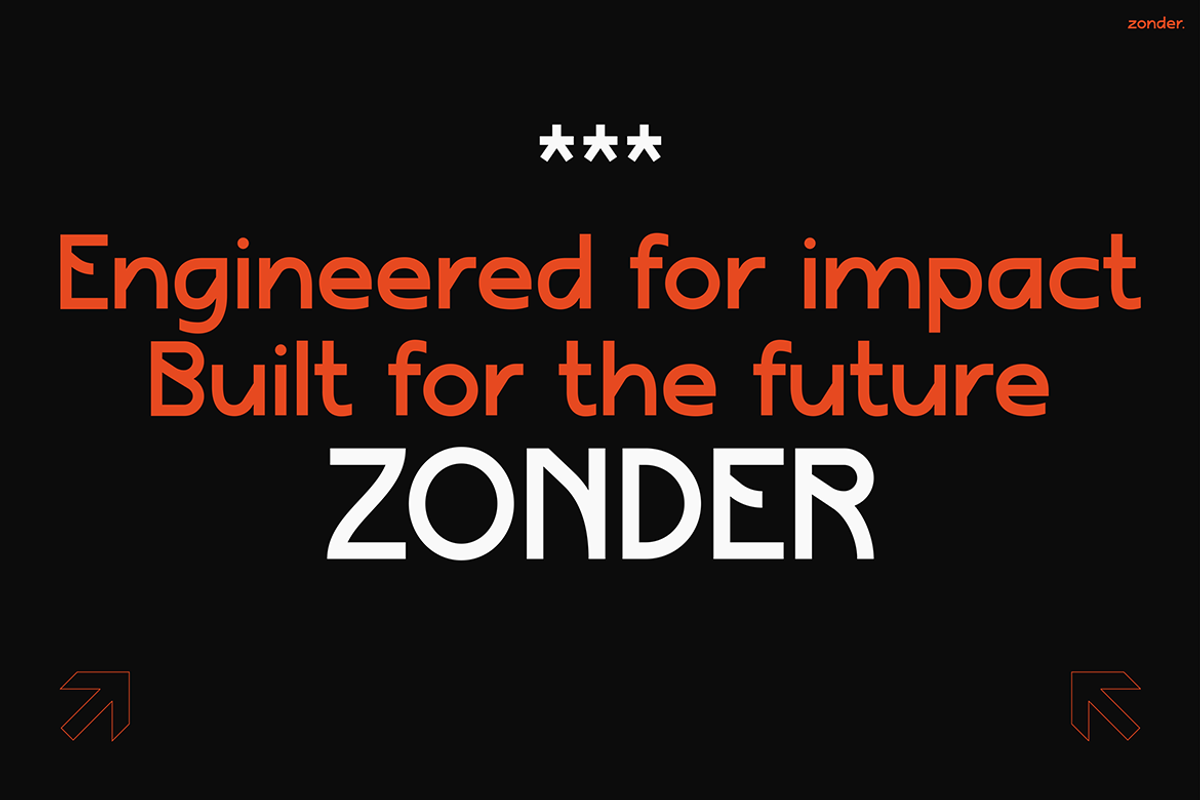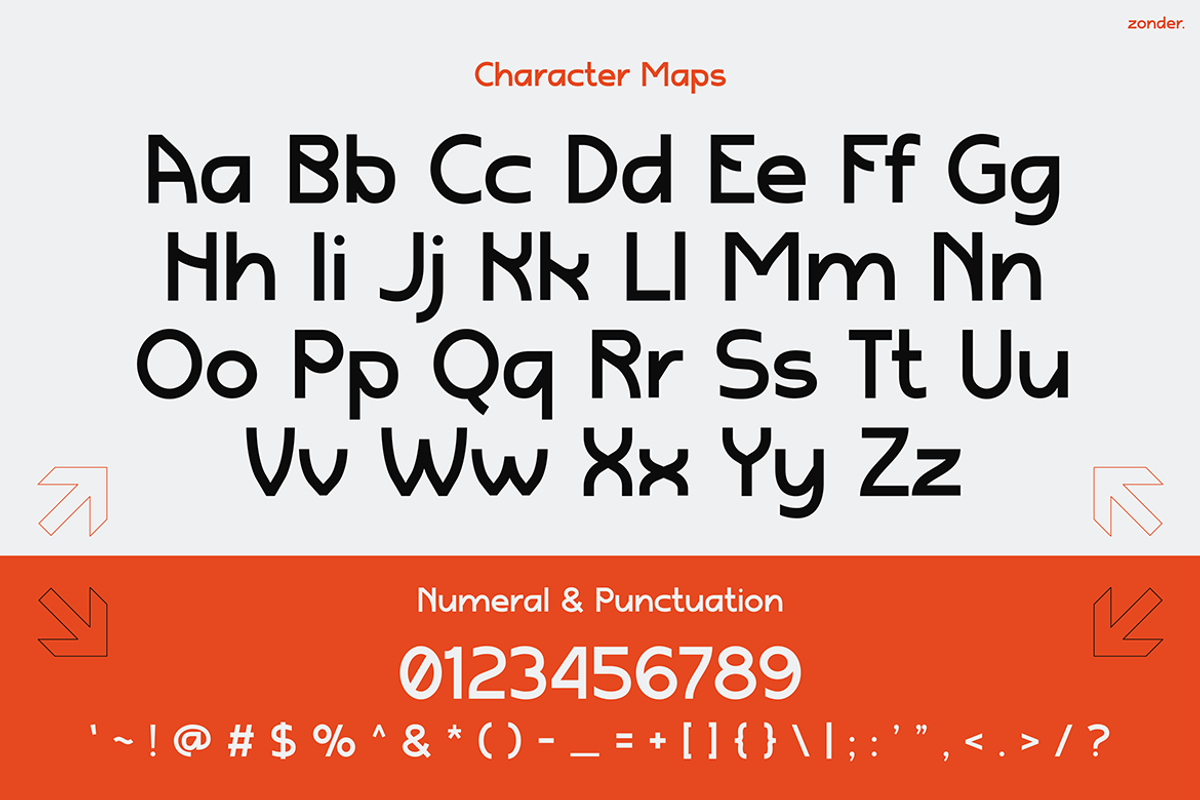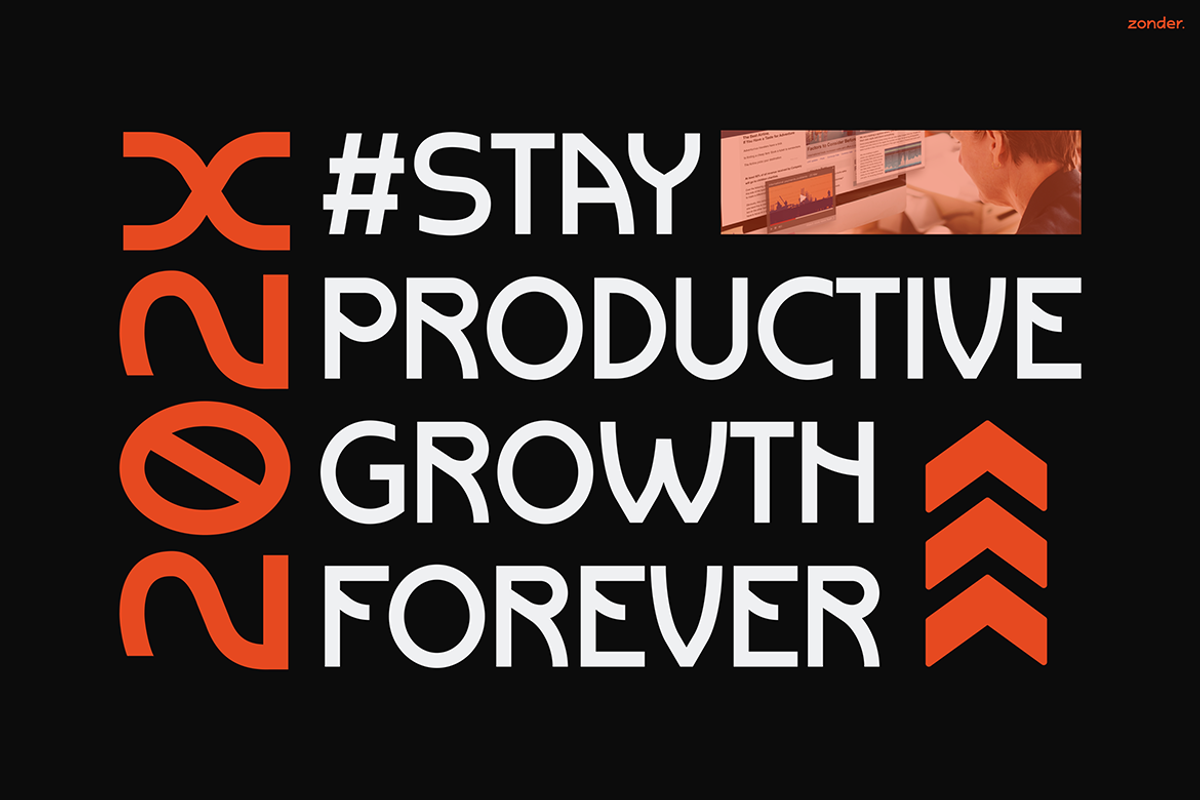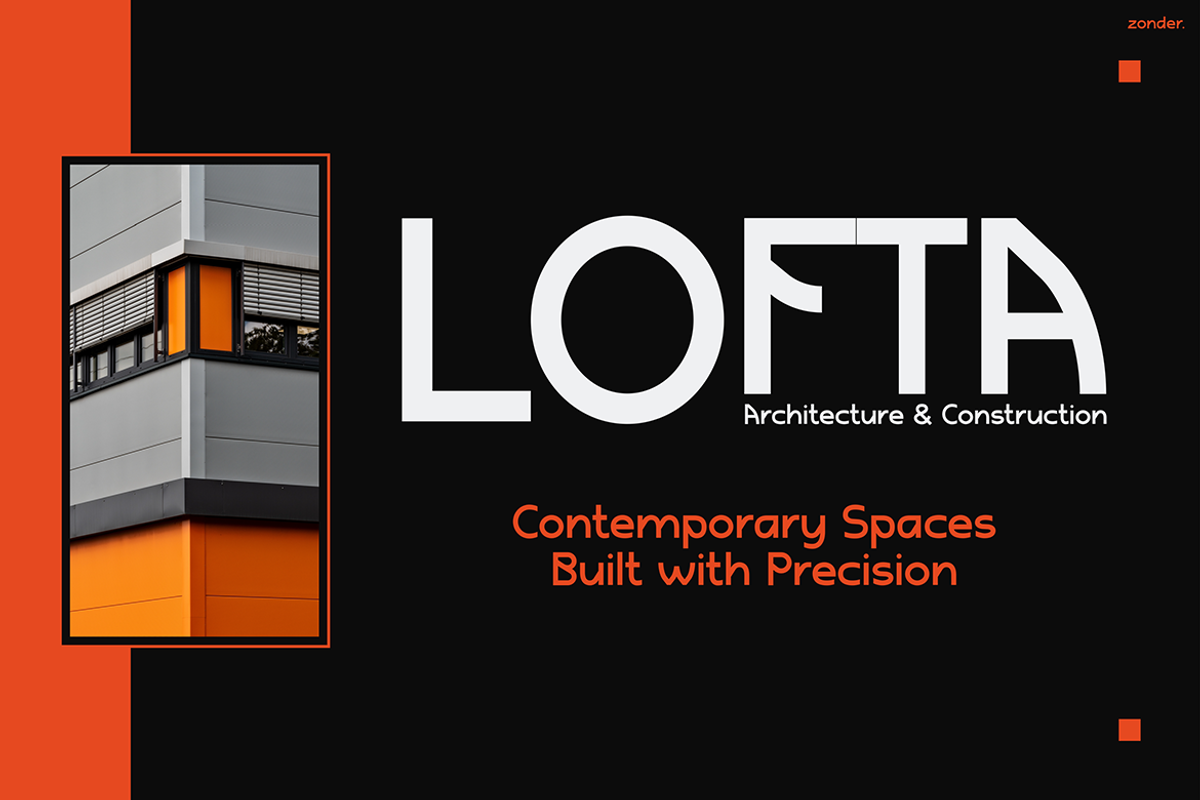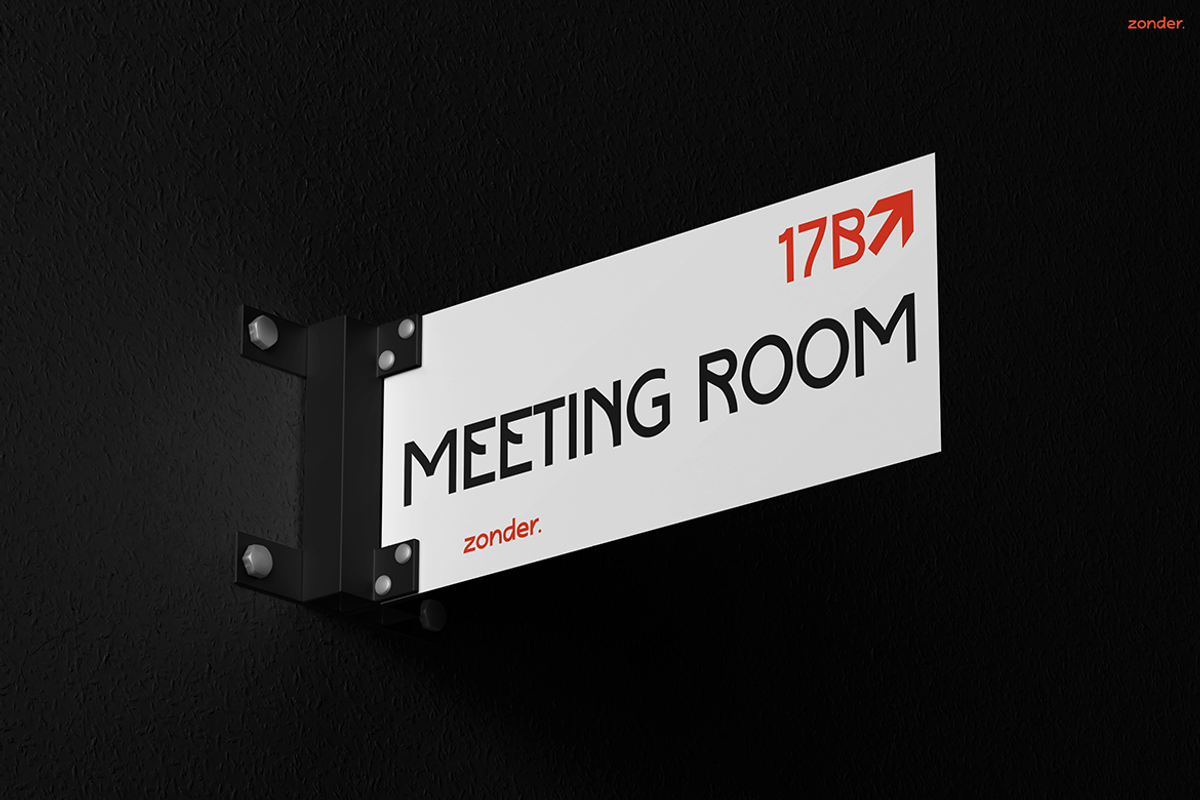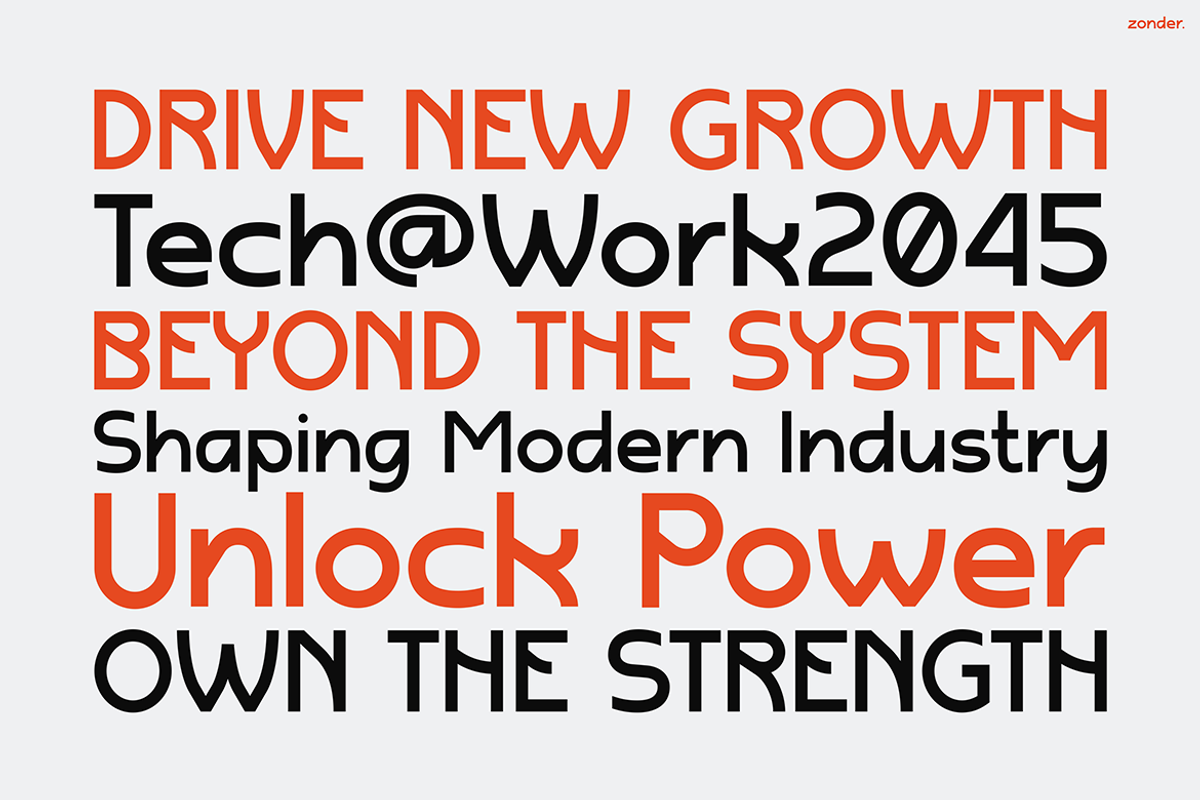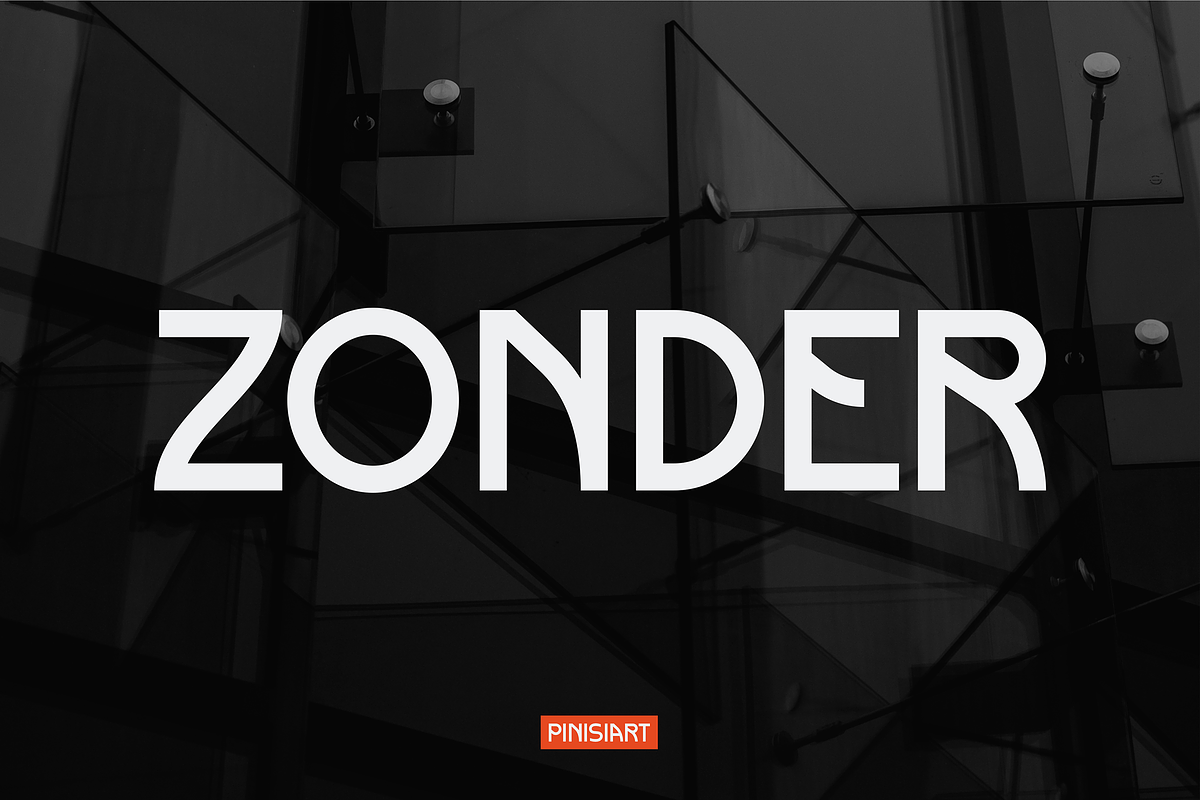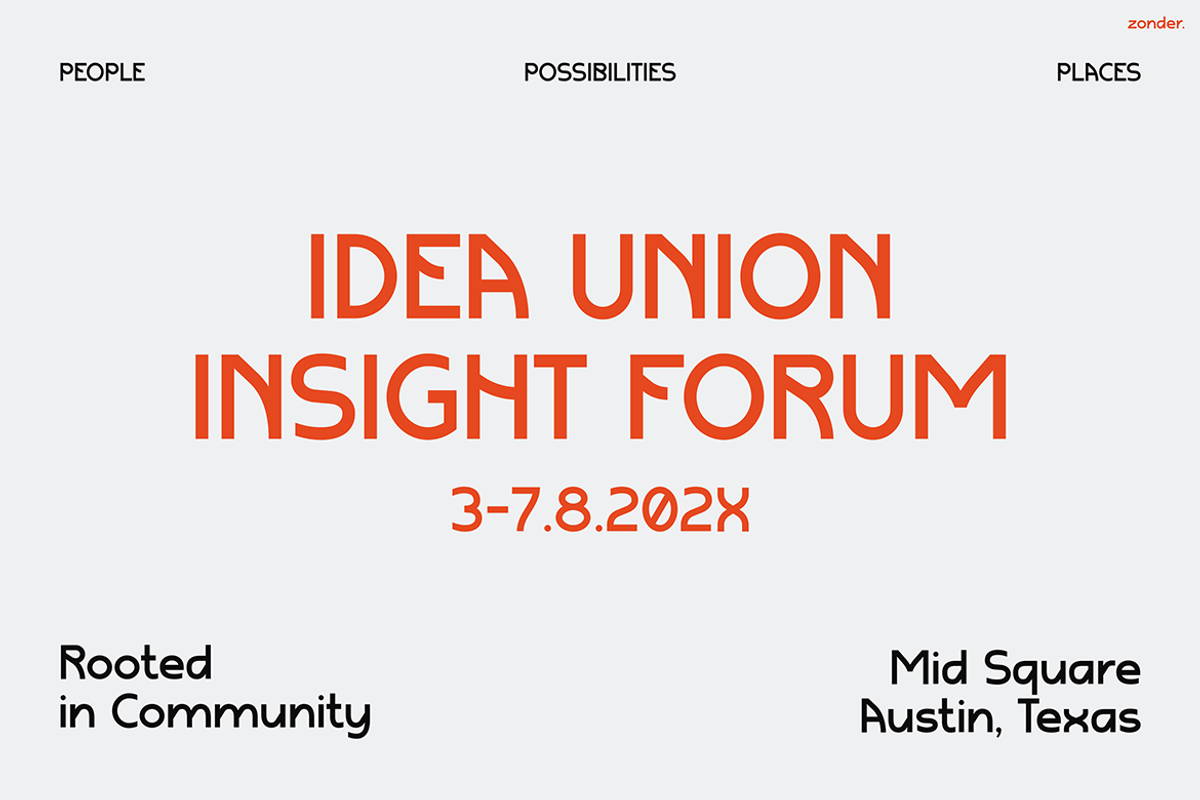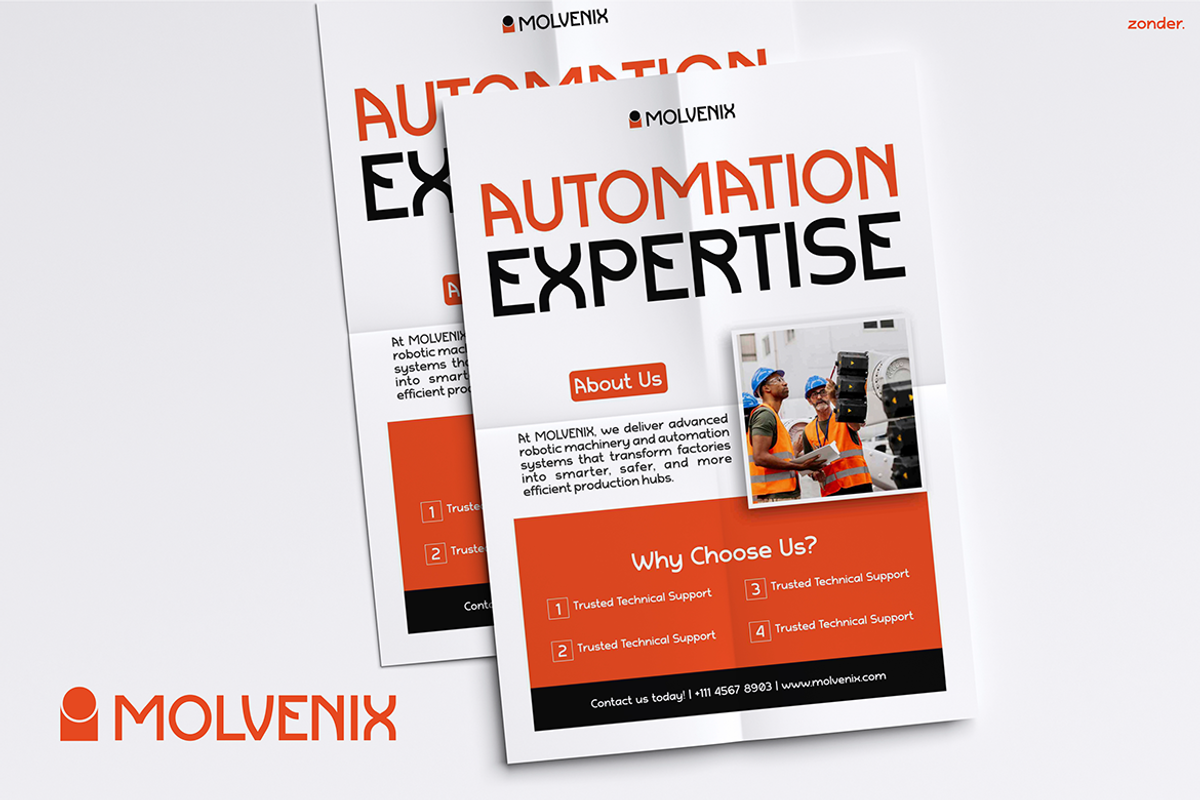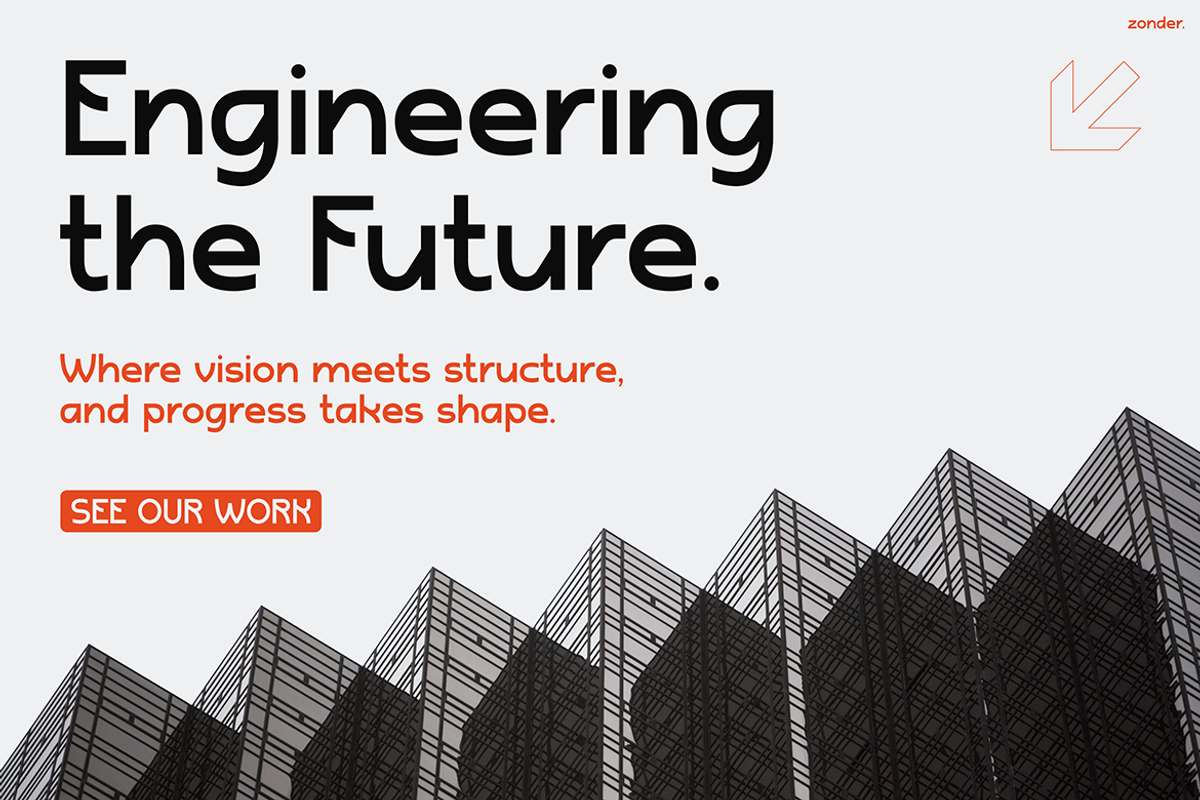
ZONDER
Instagram Font ZONDER delivers bold modern aesthetics with strong geometric shapes and clean edges. Its sharp precision defines every word, creating a striking balance of style and professionalism. Moreover, the font blends aesthetic clarity with powerful functionality, giving designers a tool that looks beautiful while staying versatile. Therefore, you can use it for digital campaigns, branding, or promotional materials, and ZONDER ensures that your message speaks with impact and sophistication.
Unlike ordinary fonts, Instagram Font ZONDER carries a sense of authority and confidence. Its futuristic look makes it ideal for projects where modern innovation meets timeless clarity. The carefully balanced curves and straight lines enhance readability while maintaining a sleek, eye-catching identity. As a result, your text doesn’t just appear on screen—it commands attention.